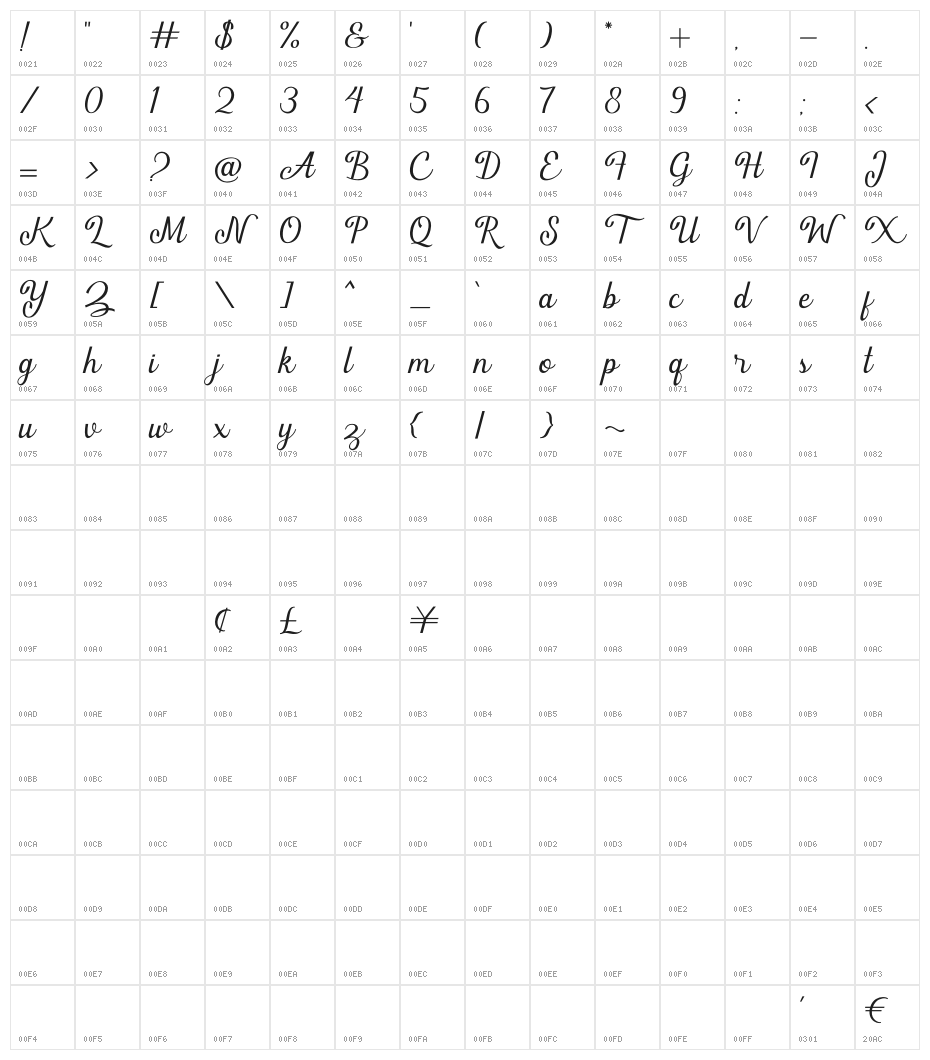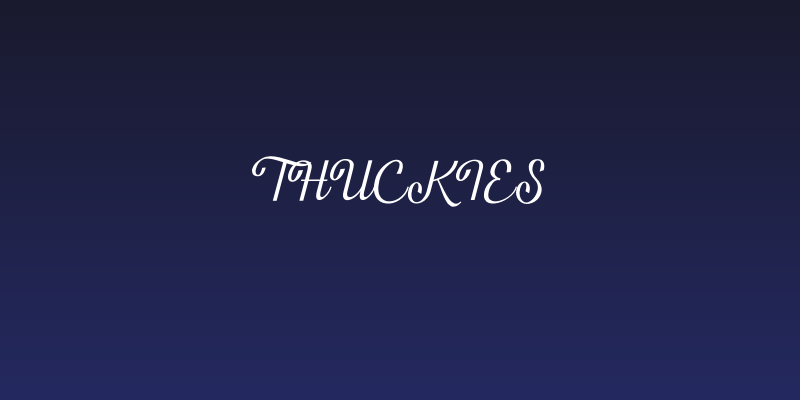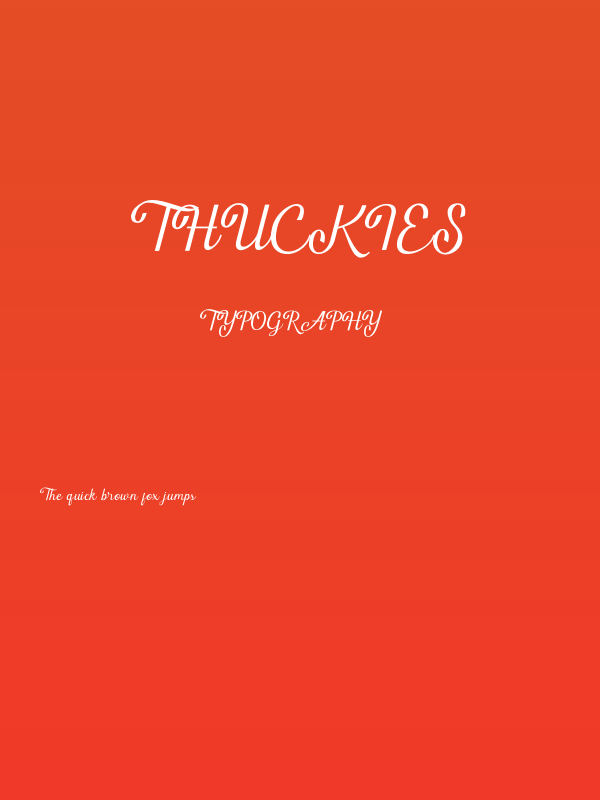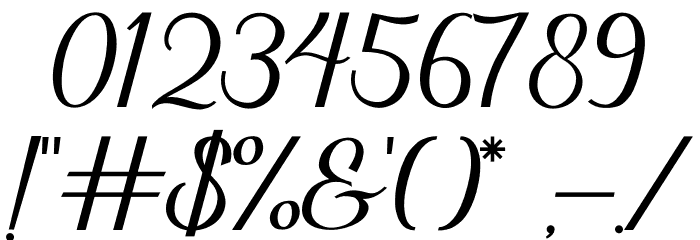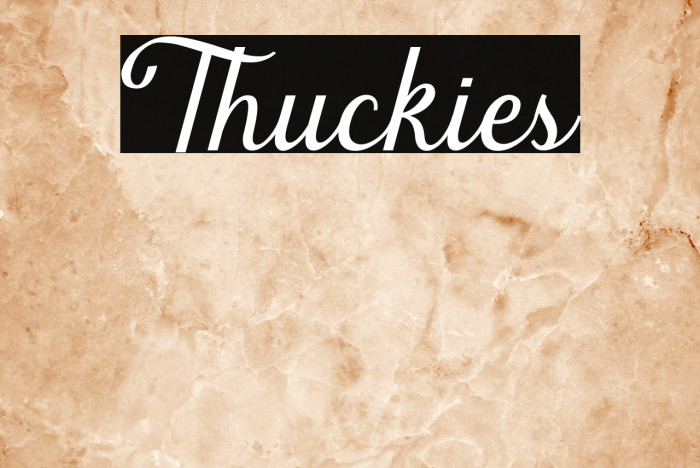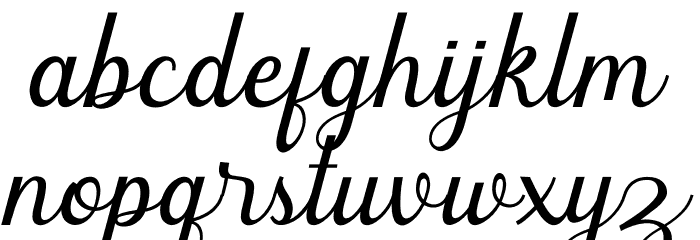
Thuckies Font
This elegant script font features a flowing, cursive style with smooth, rounded edges and a consistent stroke width. The uppercase letters are characterized by their graceful loops and swashes, adding a touch of sophistication. The lowercase letters maintain a harmonious flow, with some letters extending slightly below the baseline, enhancing the font's fluidity. The numerals are designed to match the overall style, with a balanced and legible appearance. Special characters are thoughtfully integrated, maintaining the font's cohesive aesthetic. This font exudes a sense of elegance and charm, making it suitable for a variety of creative applications.
| Proposed Projects | Ideal for wedding invitations, elegant branding, greeting cards, and decorative projects. |